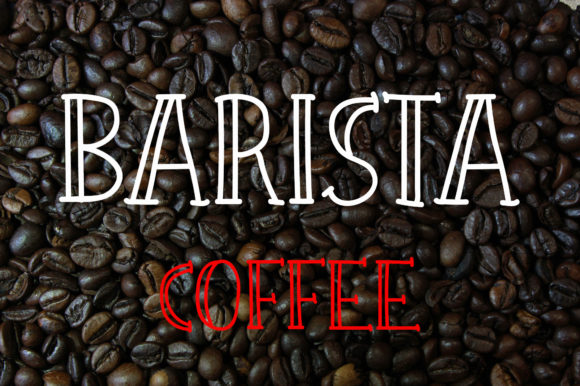
Journey into the realm of aromatic beans and frothy artistry with Barista Coffee Font, an urban-styled display font that captures the essence of coffee culture. Inspired by the steamy aroma of freshly brewed coffee and the symphony of clinking cups in a bustling café, this font embodies the energy and warmth of coffee shops and restaurants.
With its bold strokes and playful curves, Barista Coffee Font is the perfect choice for creating eye-catching designs that evoke a sense of nostalgia and comfort. Whether you're a graphic designer, a content creator, or simply a coffee enthusiast, this font will add a touch of charm to your projects.
Let your imagination run wild as you explore the endless possibilities of Barista Coffee Font. Use it to create stunning magazine covers that draw readers in with their captivating headlines. Design logos that exude the warmth and familiarity of a neighborhood coffee shop. Craft menus that entice diners with their elegant yet playful typography. The possibilities are as limitless as the aroma of freshly ground coffee beans.
With its versatility and charm, Barista Coffee Font is an essential tool for anyone looking to add a touch of creative flair to their designs. Whether you're working on a personal project or a commercial venture, this font will elevate your designs to new heights.